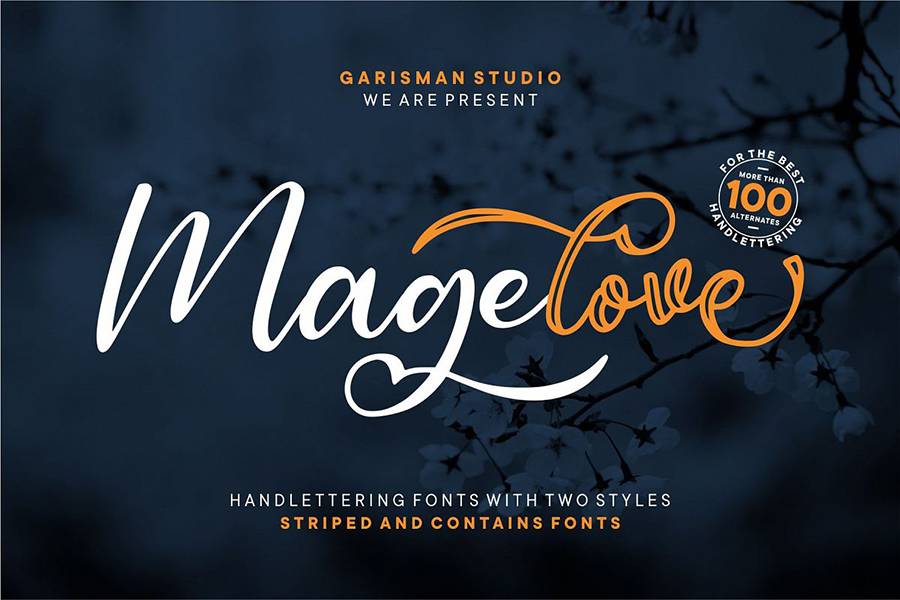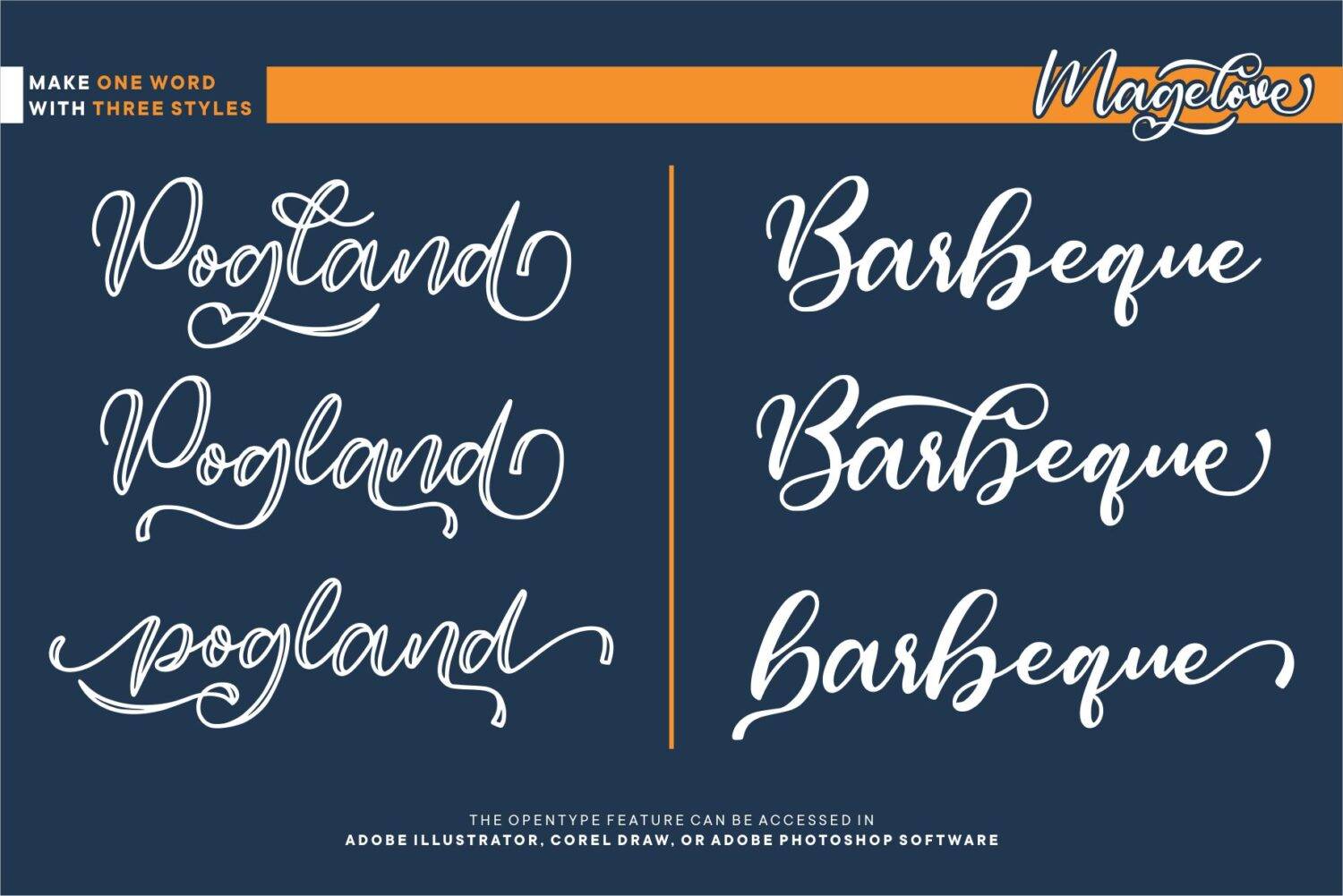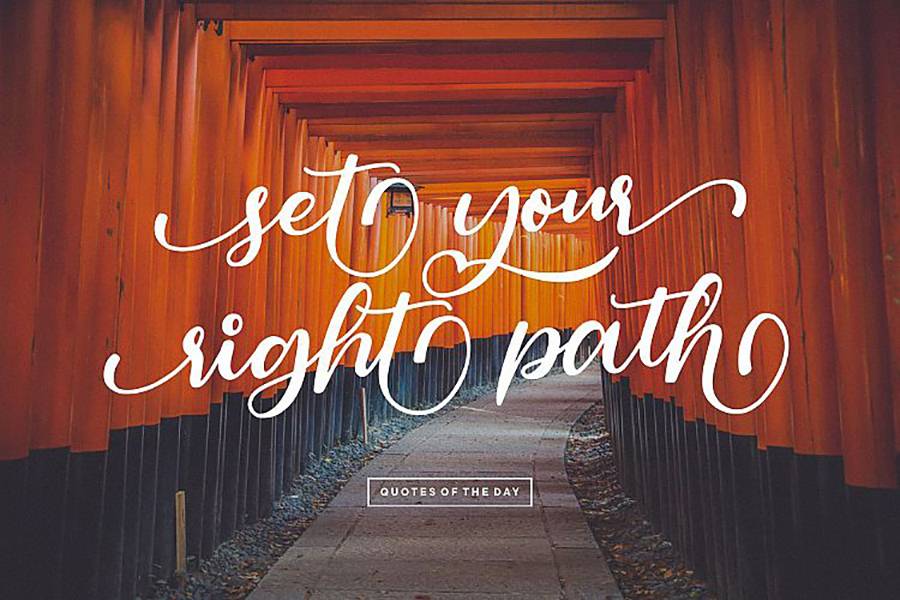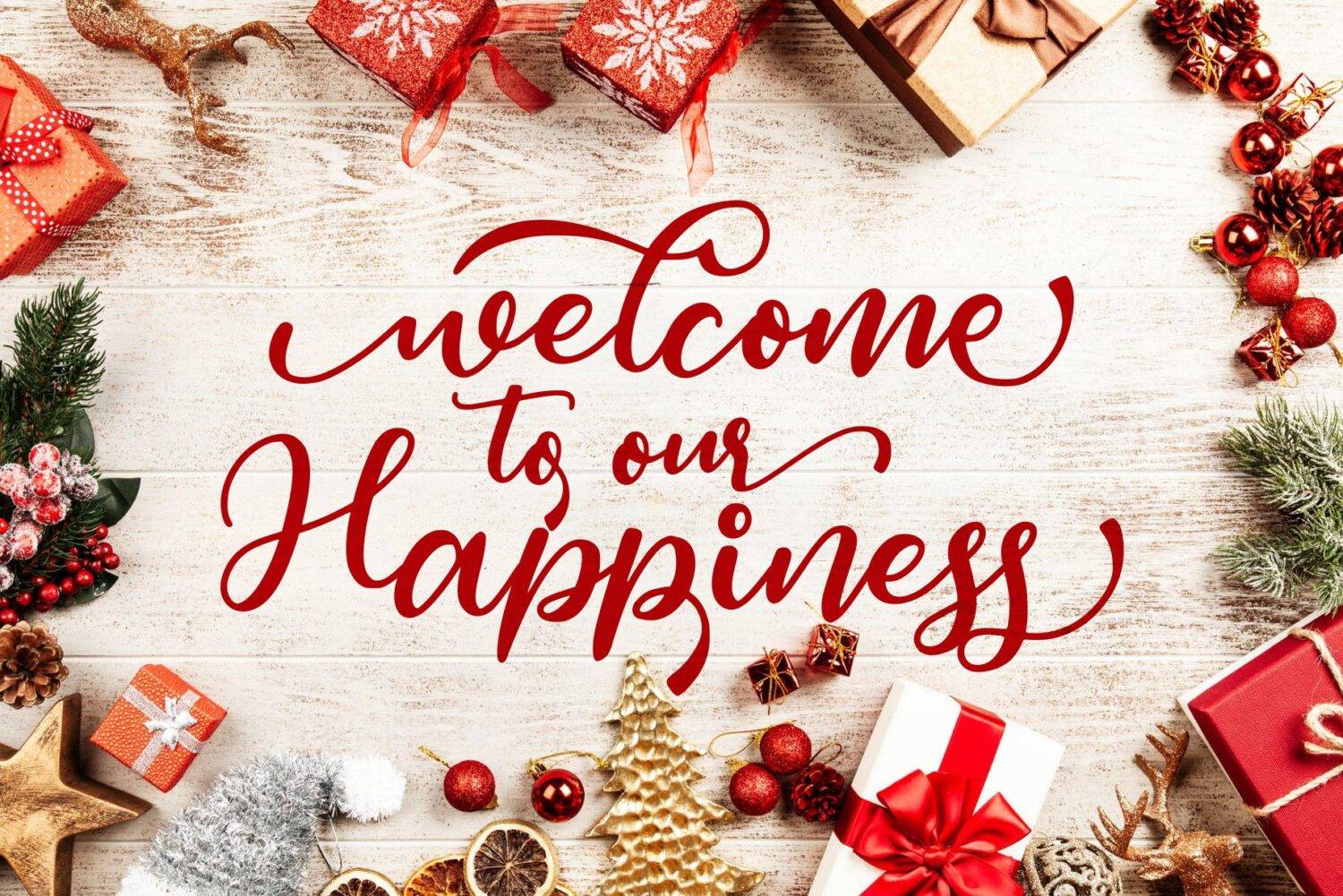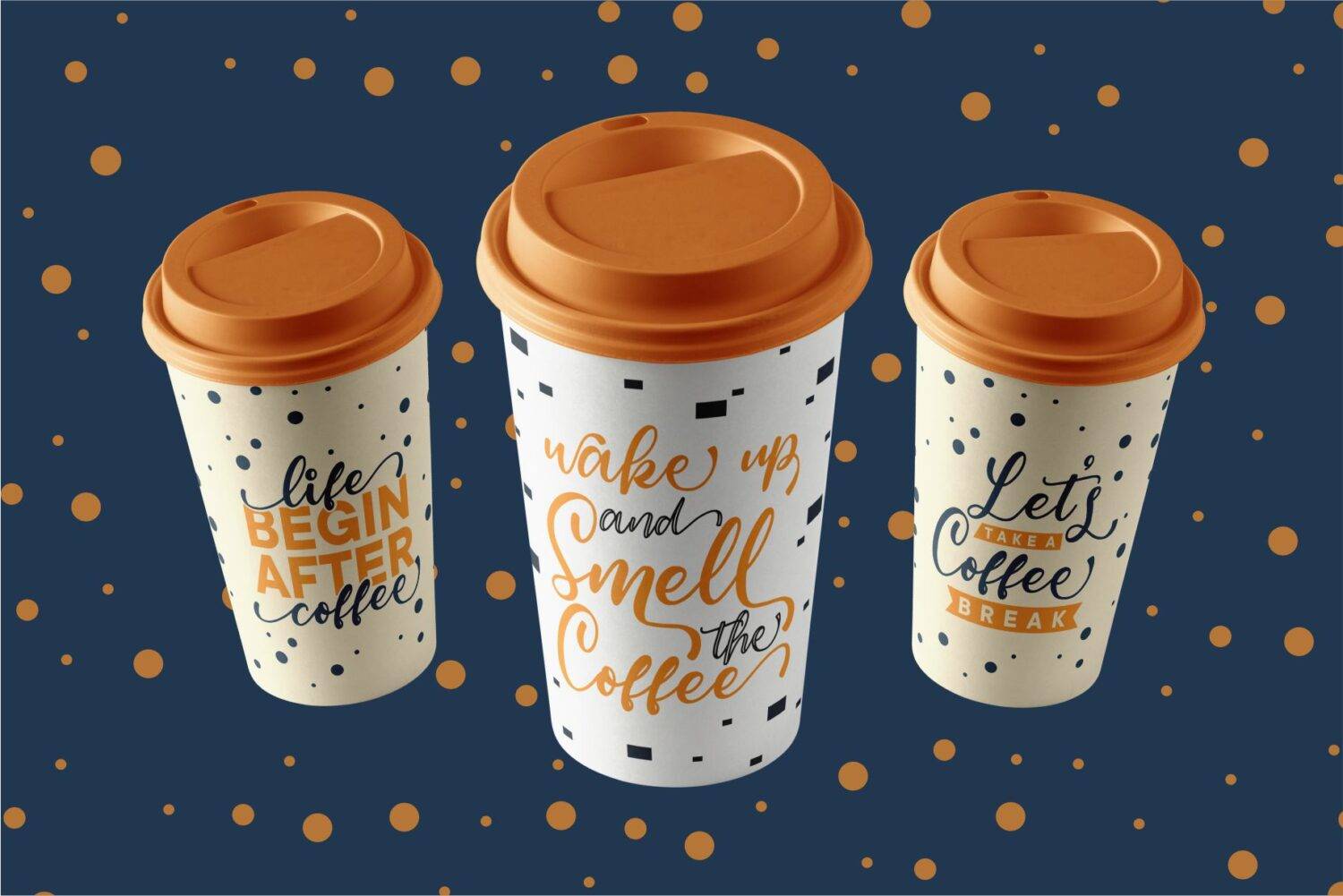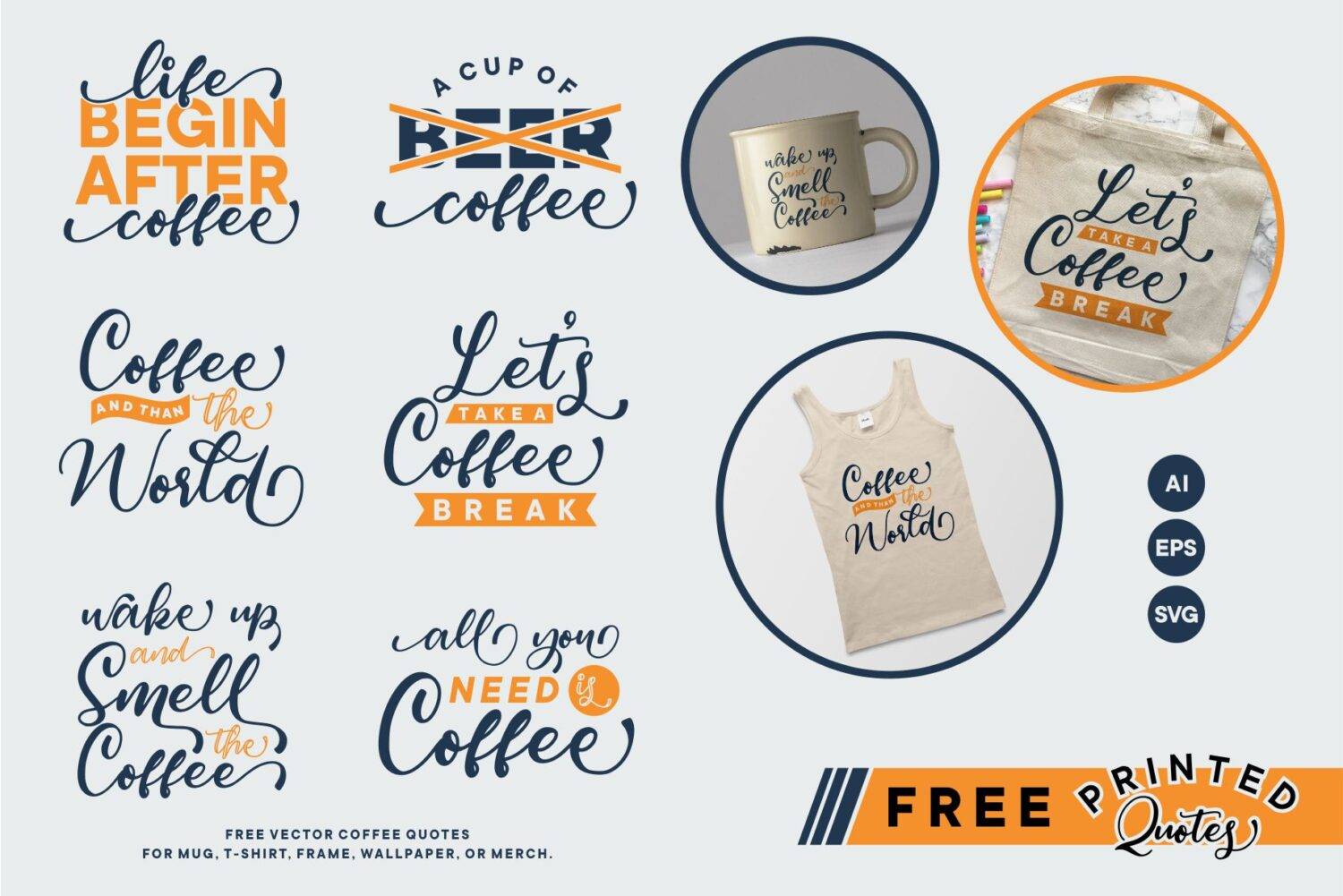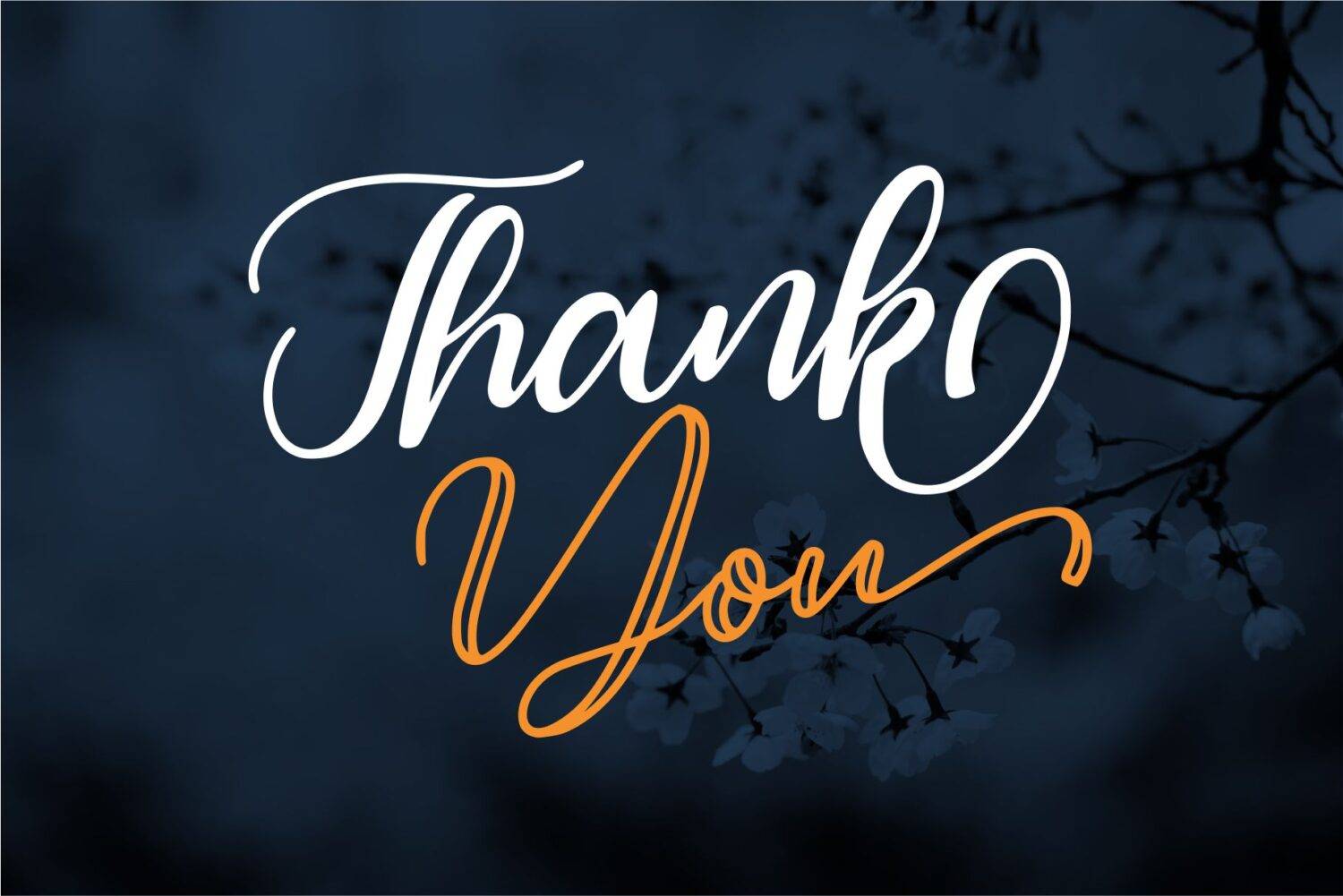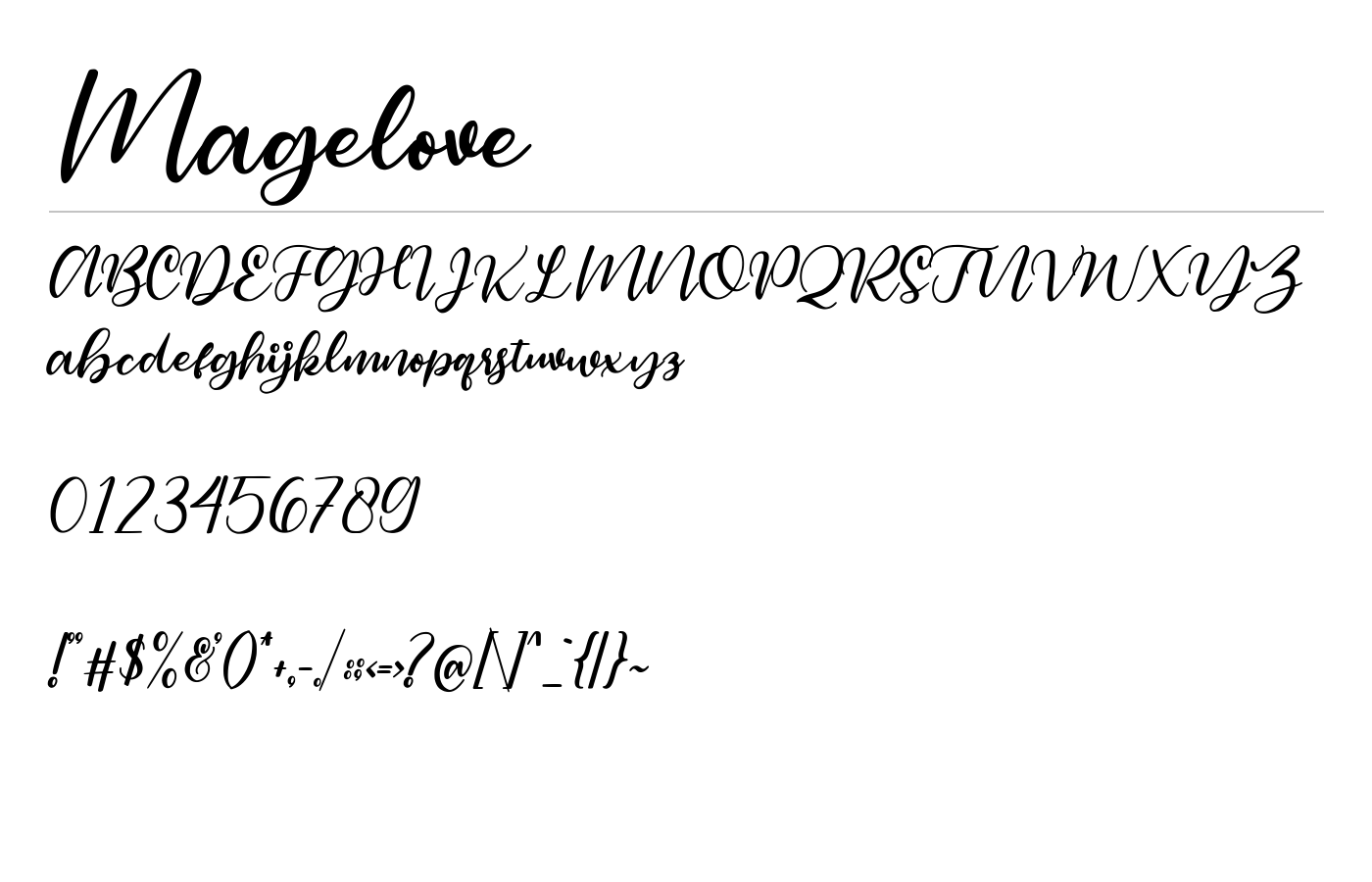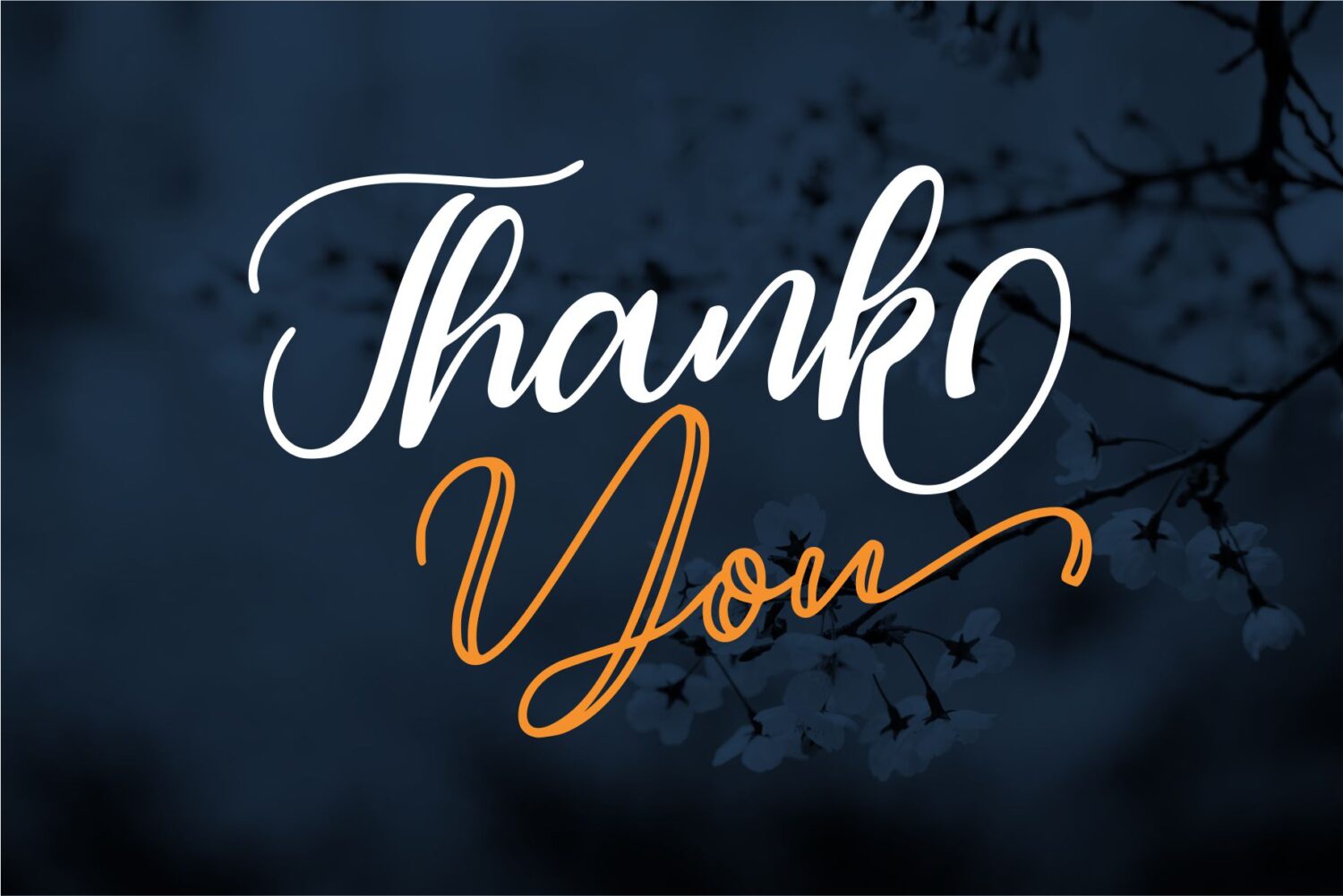
Magelove Handlettering Script is an elegant and flowing script font that captures the charm of hand-drawn calligraphy with smooth, connected strokes and moderate contrast. Its slender, slightly slanted letterforms convey a personal and sophisticated feel, making it perfect for wedding invitations, branding, and feminine design projects where a touch of graceful warmth is desired. This font shines in headlines and decorative uses, lending a stylish yet approachable personality to any creative work.
Magelove Handlettering Script
About Magelove Handlettering Script
| Font family | Magelove Handlettering Script |